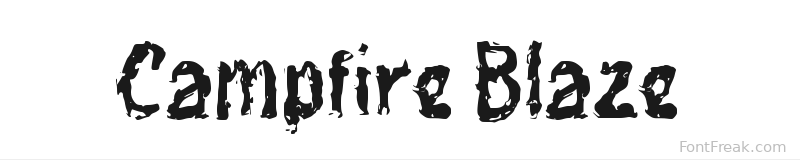
Campfire Blaze
About Campfire Blaze
Campfire Blaze is a striking display font designed by Wahyu Eka Prasetya, characterized by its bold and rugged aesthetic. This decorative typeface embodies the essence of outdoor adventures, making it perfect for projects that evoke a sense of warmth and camaraderie. The font features irregular stroke weights that give it a hand-crafted appearance, with a high contrast between thick and thin lines. The letterforms exhibit a playful spacing, enhancing readability while maintaining an adventurous spirit. The decorative elements, reminiscent of charred wood or campfire embers, further amplify its unique character.
Best suited for a variety of creative applications, Campfire Blaze shines in contexts such as wedding invitations for outdoor-themed ceremonies, movie posters that aim to capture a rustic or adventurous vibe, and restaurant menus highlighting campfire cuisine. It can also be effectively used in branding for outdoor gear companies, as it resonates well with the adventurous target audience. Graphic designers, small business owners, and content creators will find this font particularly appealing due to its versatility and distinctive charm.